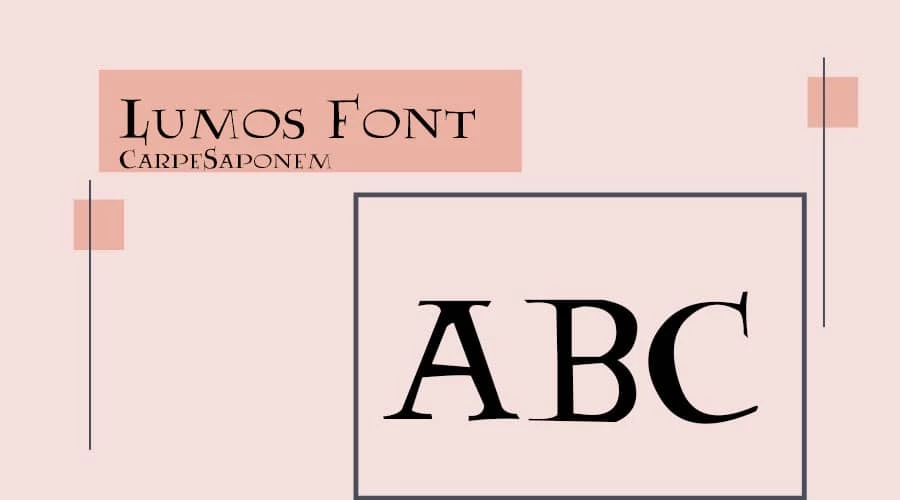
For those of us who are Harry Potter fans, this write-up will fuel their interest. Today we are going to highlight a Harry Potter-inspired typeface, the Lumos font.
Lumos font is designed and released by CarpeSaponem. This is named after one of the spells of the Harry Potter series. In visuality, it gives a sweet yet sharp appearance. When used in a design, it looks like the font is engraved on the design surface.
It features only one style (regular), capital letters, and special characters. What’s more interesting is, this freeware typeface includes a broom and a golden snitch in its font family. Also, you will see fancy fragments in a few characters of this font.
Common Usages
Lumos is a display font, therefore it is suitable for any large text-based design. Since this all-cap typeface gives a horror tone, you can use it to give a scary or mysterious touch to your projects. Use the Lumos typeface in
- Advertisements
- App development
- Book covers
- Business cards
- Brochure layouts
- Collectibles
- Emblem designs
- Game graphics
- Headlines
- Invitation cards
- Kids’ project
- Logos
- Magazine covers
- Online (occasionally offline) banners
- Posters of all kinds
- PowerPoint presentations
- Titles
- T-shirts and other costumes
- TV shows
- Vector designs
- Website development
- YouTube thumbnails
Name | Lumos Font. |
Style | Display, Horror, Fancy |
Designer | CarpeSaponem. |
Ans: Lumos is a display typeface designed by CarpeSaponem.